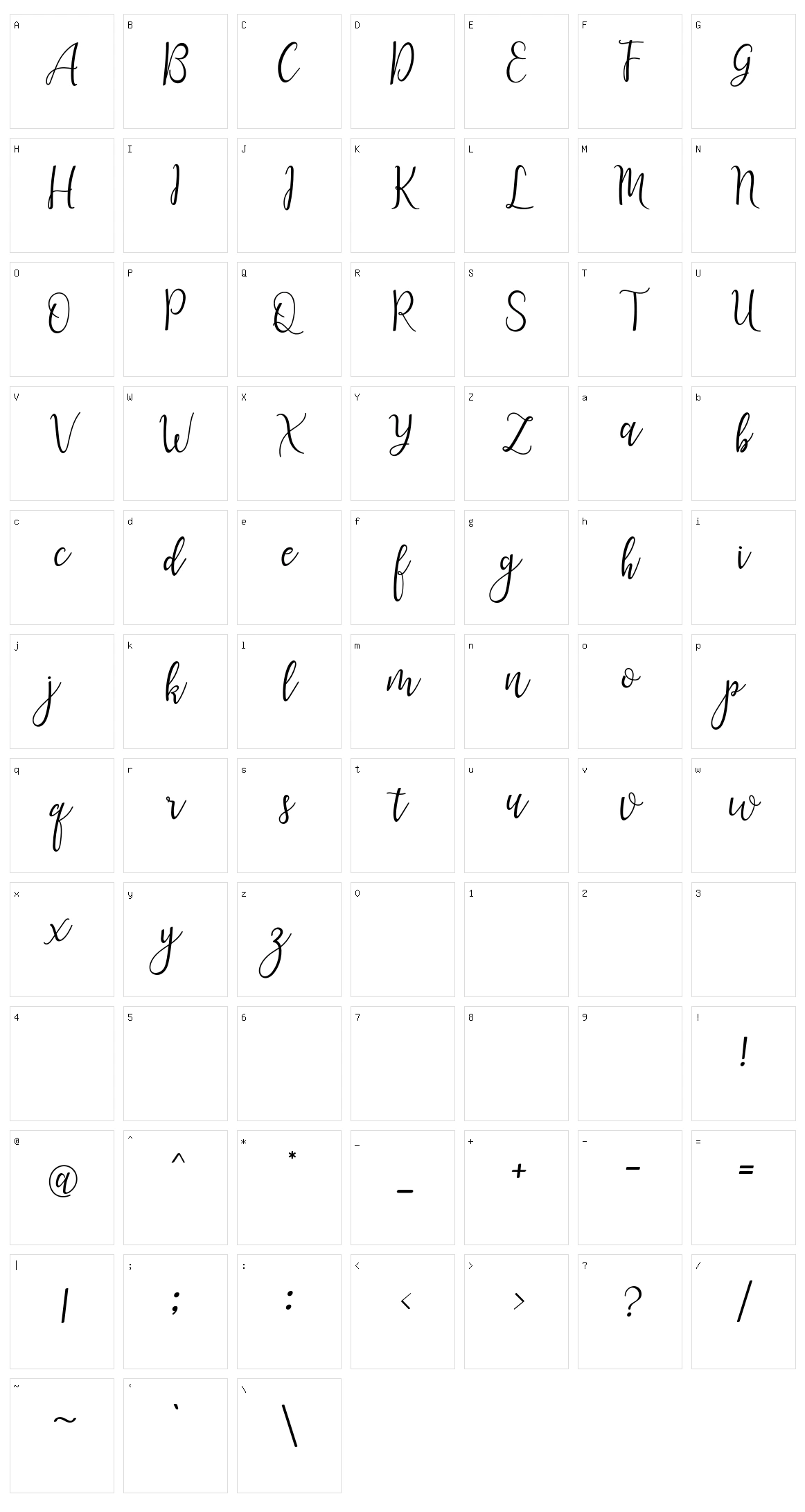
The free font Lanara Script is carefully designed by aqr typeface, showcasing a thoughtful balance of creativity and usability and falls under the Script font style. When you download the ZIP file, it contains only 4444.04 KB of font files, making it lightweight and quick to download. Please review the license details below to understand permitted usage and distribution rights. If license information is not available, we recommend using this font for personal projects only or contacting the author directly for commercial usage permissions.